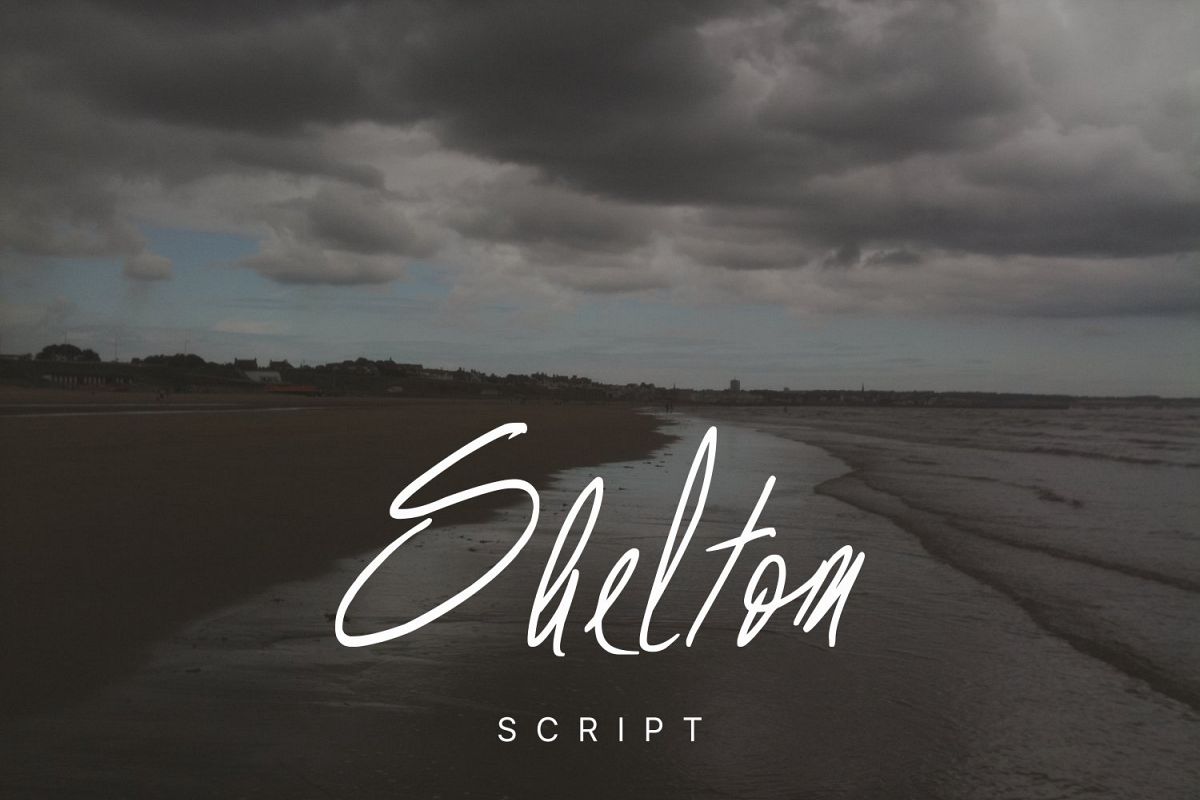
Shelton Script
Shelton Scrip
Shelton Script – is a handwritten font with great style and perfect for photography, signatures, branding etc …
Shelton Script